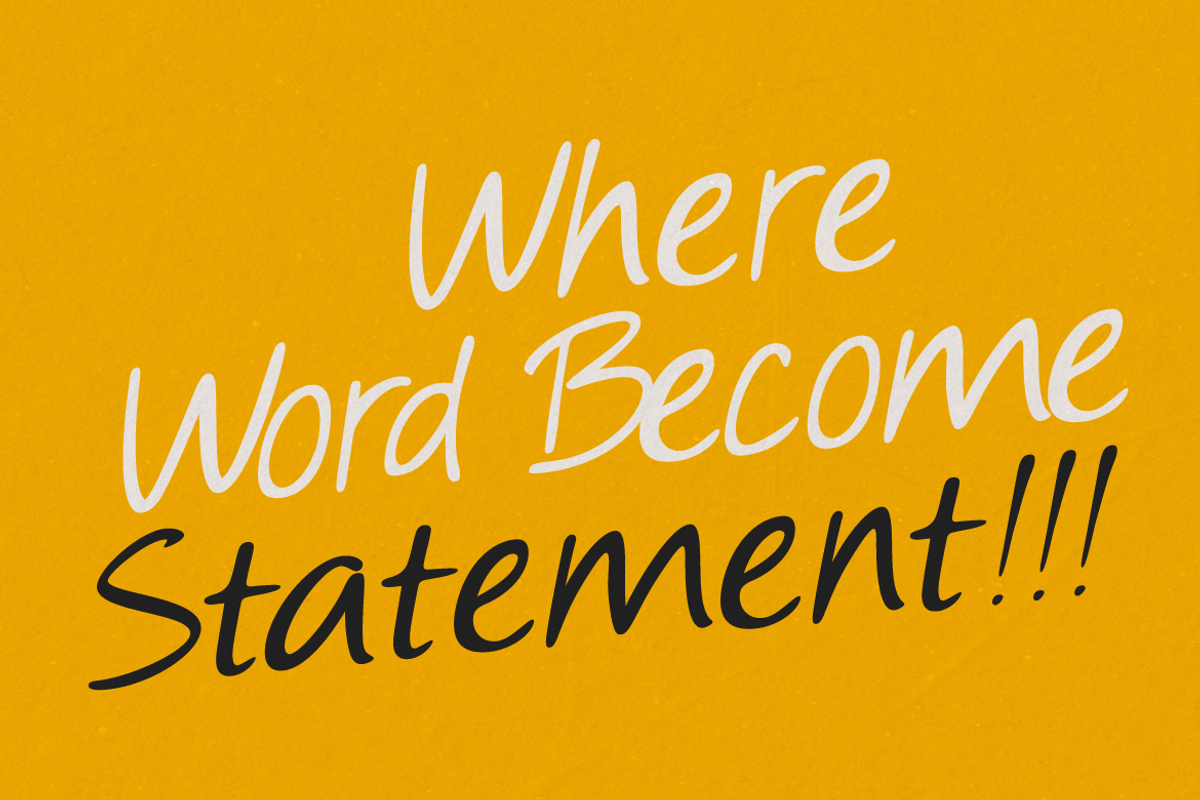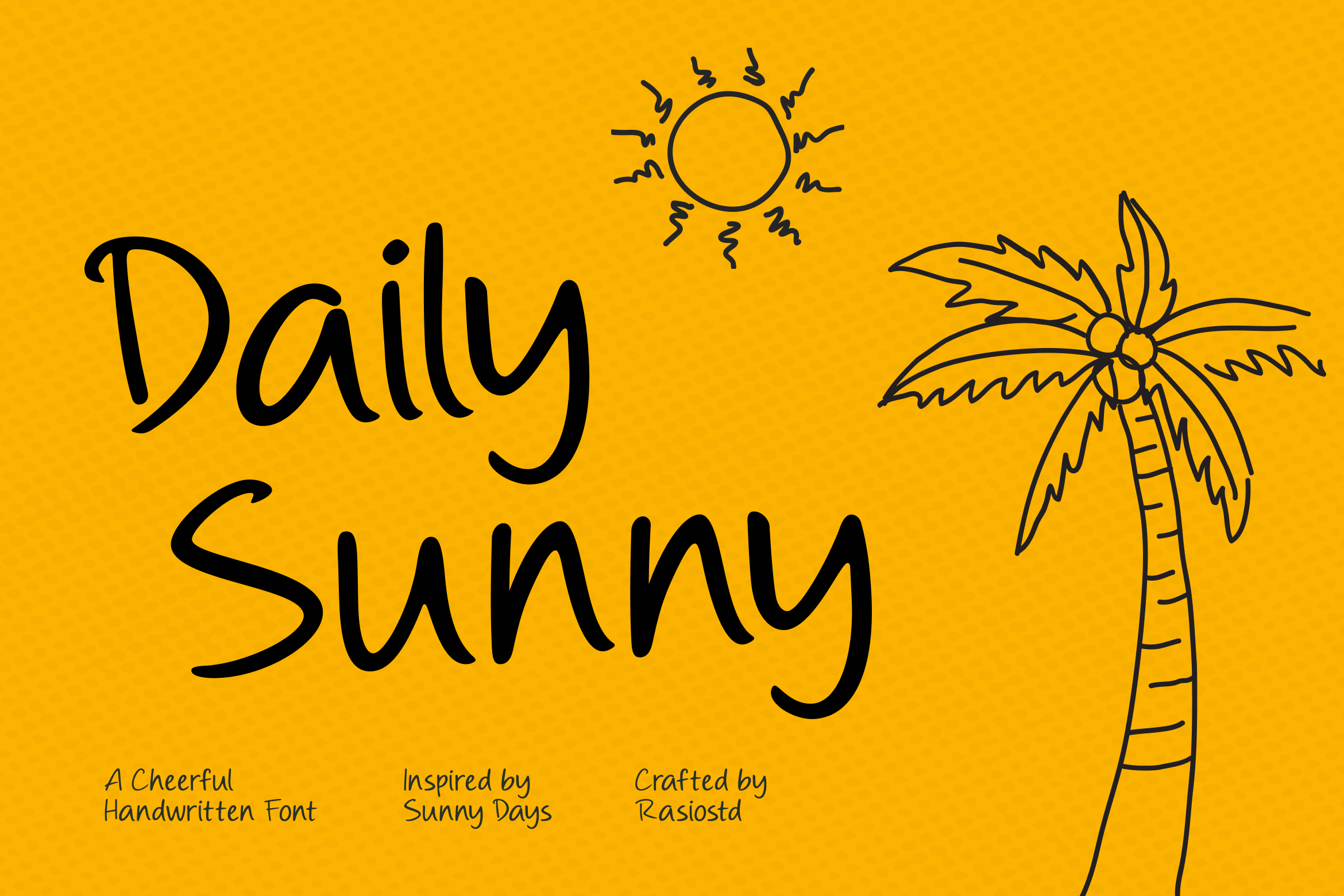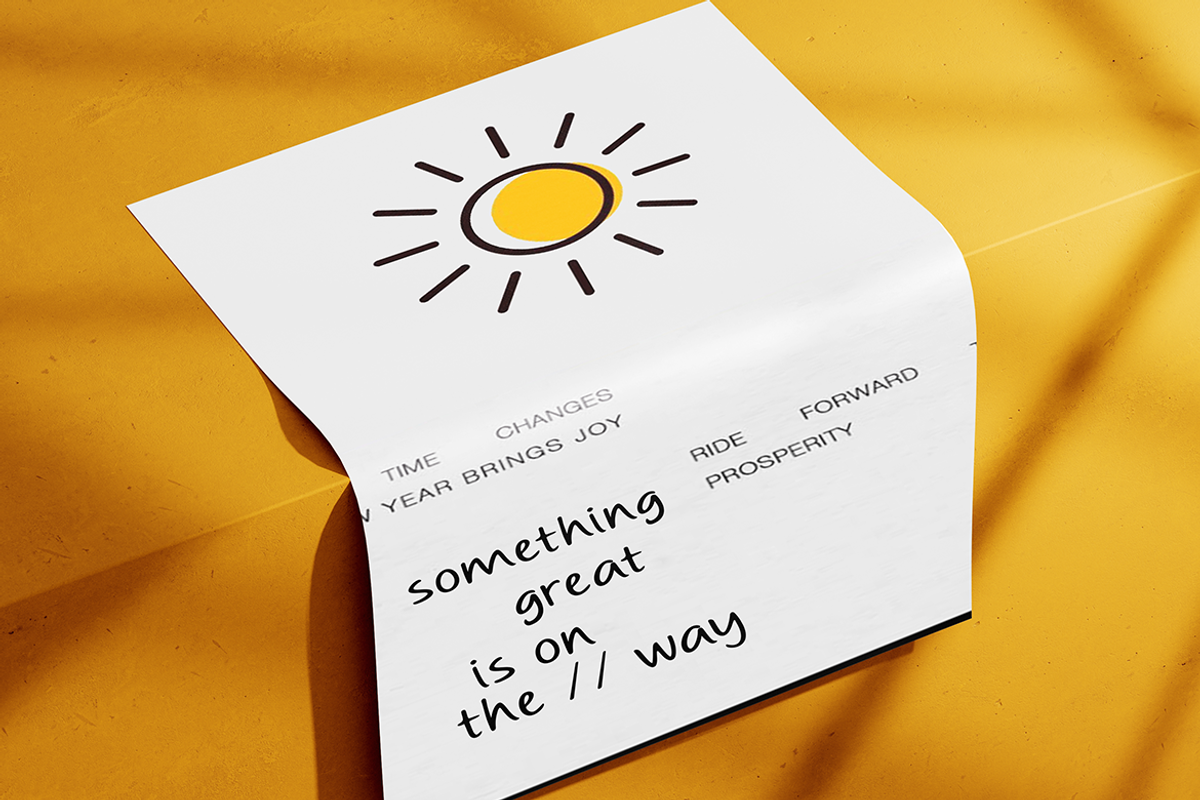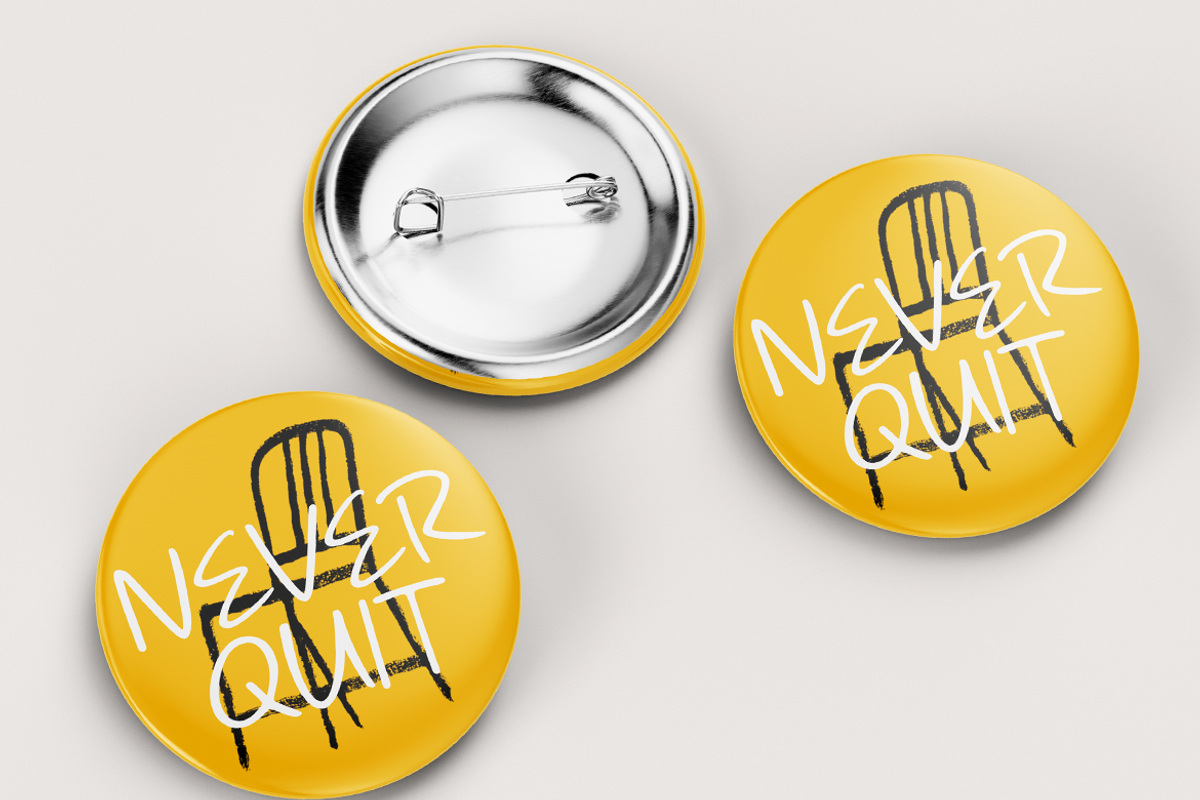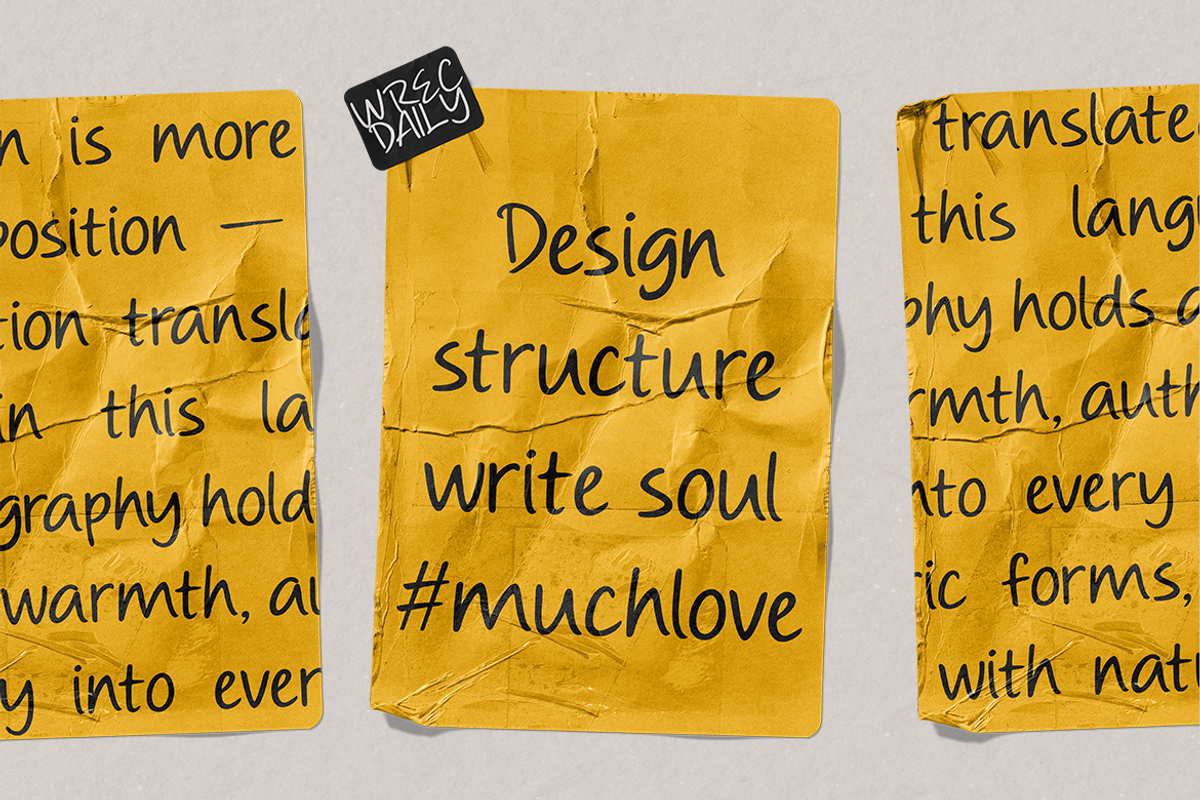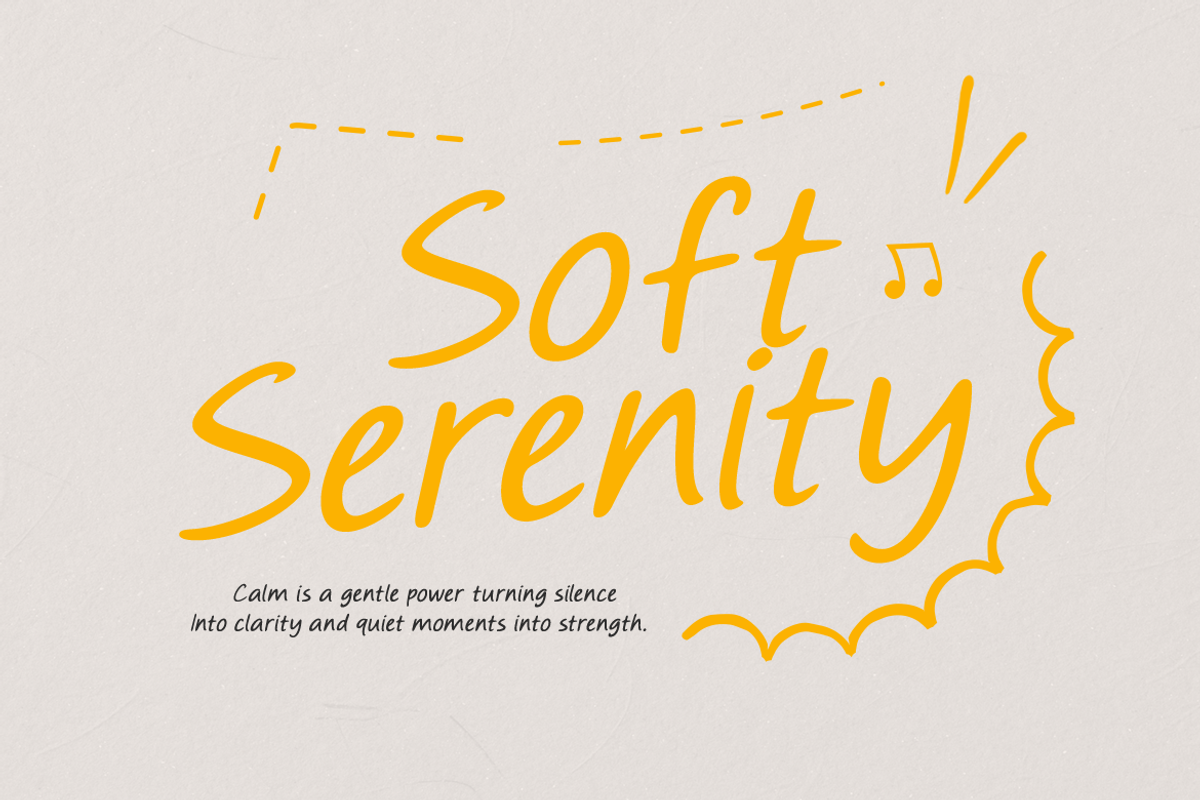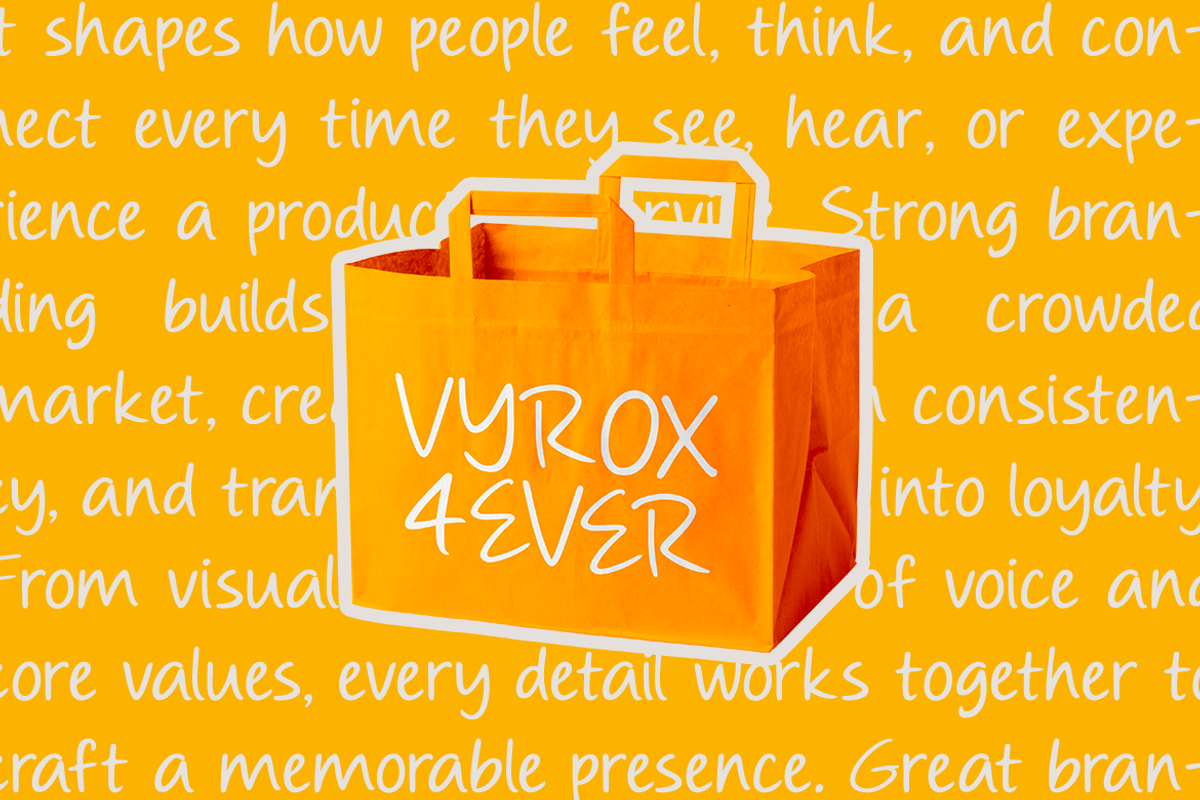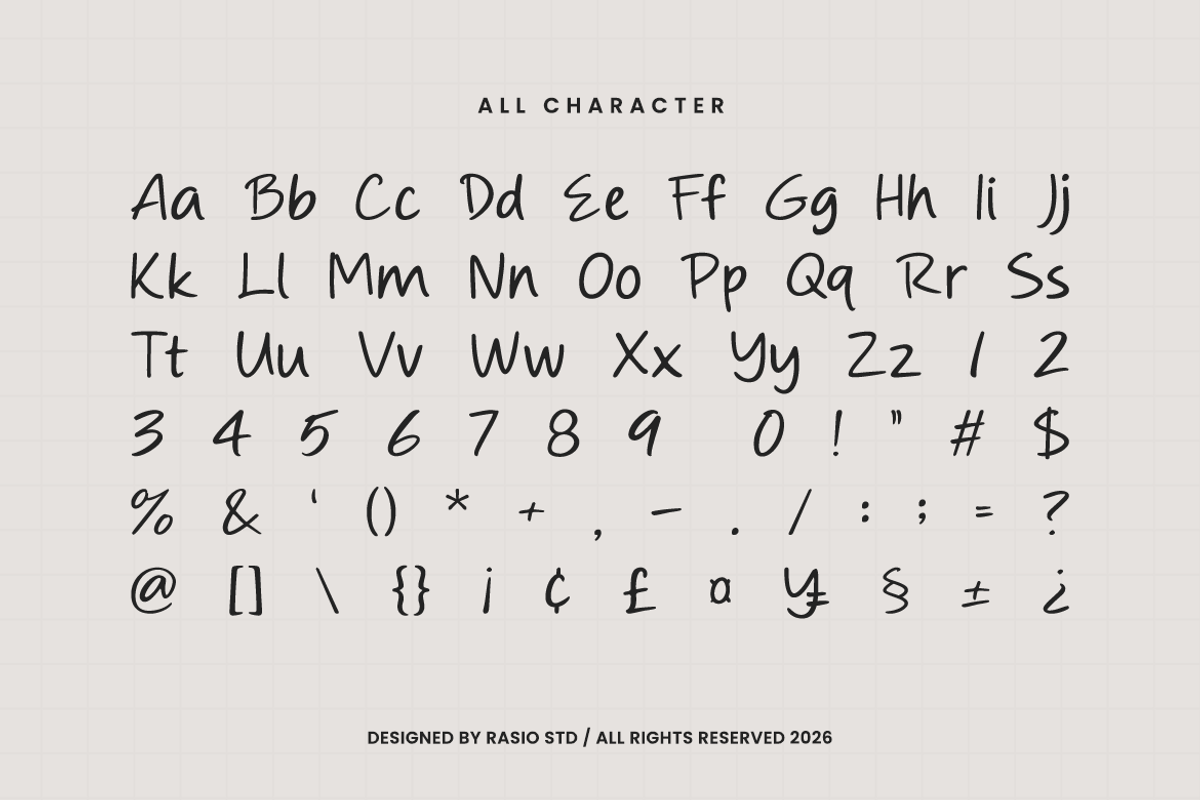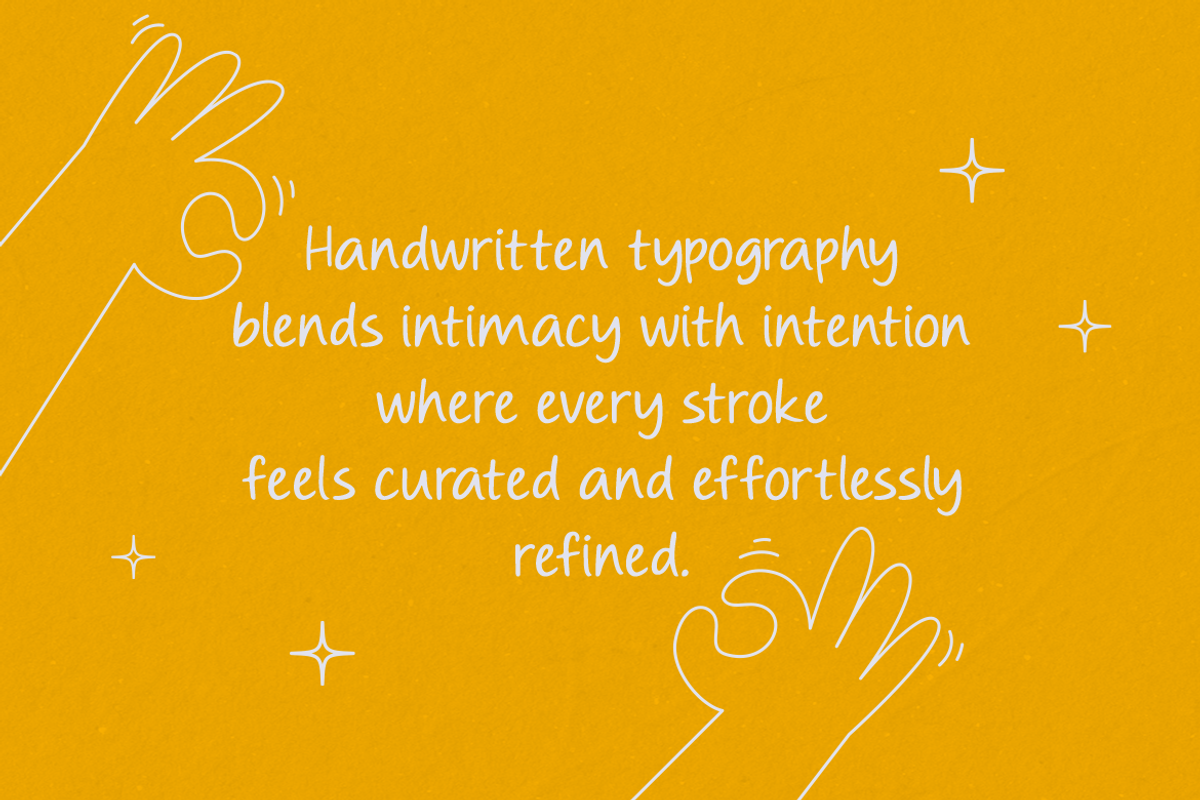
Daily Sunny Handwritten Font
Daily Sunny is a cheerful handwritten font inspired by bright sunny days, relaxed handwriting, and playful everyday creativity. The letterforms feature smooth flowing strokes, natural curves, and friendly proportions that create a warm and approachable personality. Its casual handwritten style gives designs a personal and expressive touch while remaining clear and easy to read.
Daily Sunny is perfect for creative projects that require a friendly and expressive handwritten look. The casual strokes and cheerful personality make it ideal for branding designs, lifestyle packaging, greeting cards, social media graphics, inspirational quotes, posters, product labels, blog visuals, handmade brand identities, and creative marketing materials that benefit from a warm and personal typography style.
- Cheerful handwritten style with natural flowing stroke rhythm
- Soft rounded letterforms that create a friendly and approachable look
- Smooth curves and casual handwritten movement for effortless readability
- Slightly varied stroke shapes that mimic authentic pen-written characters
- Relaxed spacing that keeps headlines playful while remaining clear and balanced
- Friendly brand identity projects that need a warm and personal handwritten touch
- Greeting cards, invitations, and quote designs with cheerful typography
- Product packaging and handmade brand labels with playful character
- Social media graphics and lifestyle content that feel casual and expressive
- Posters, stickers, and creative marketing materials with fun handwritten style